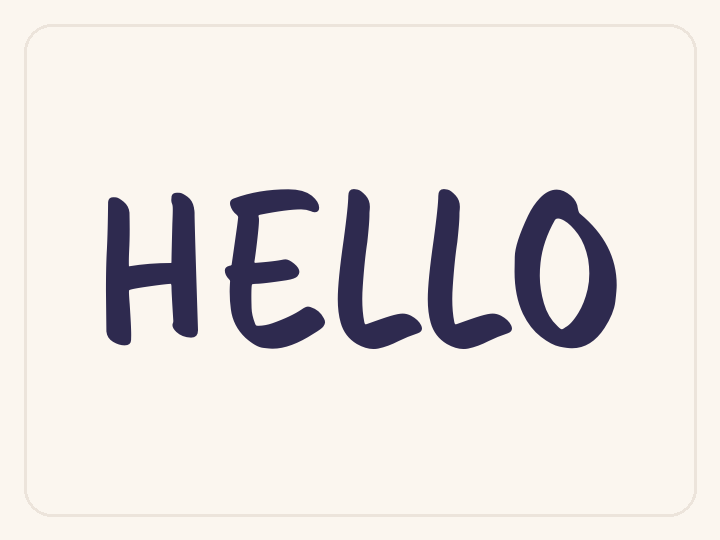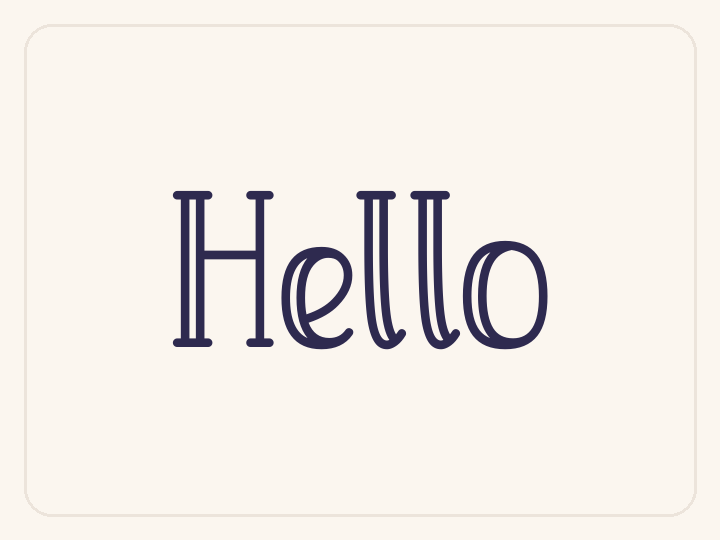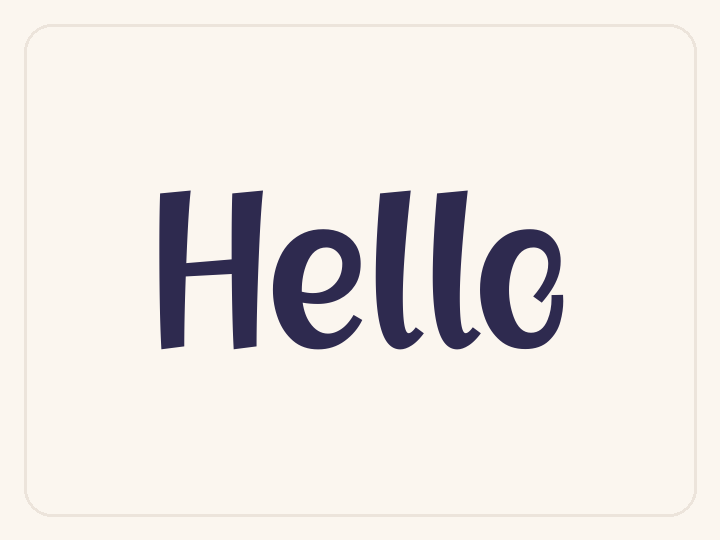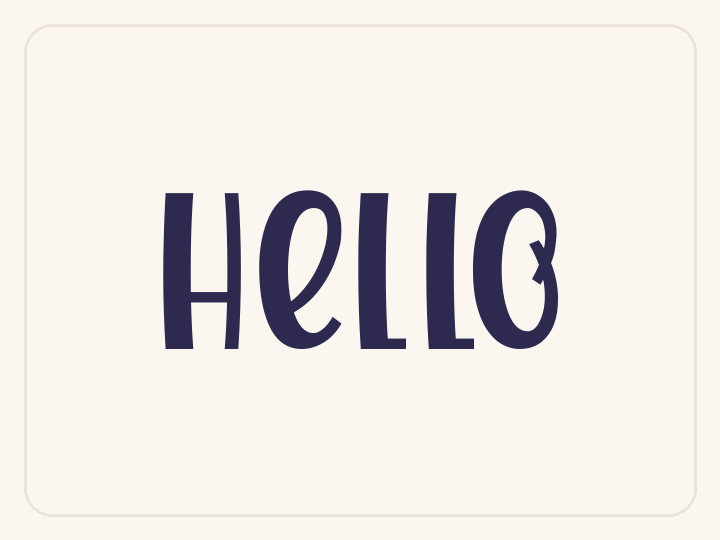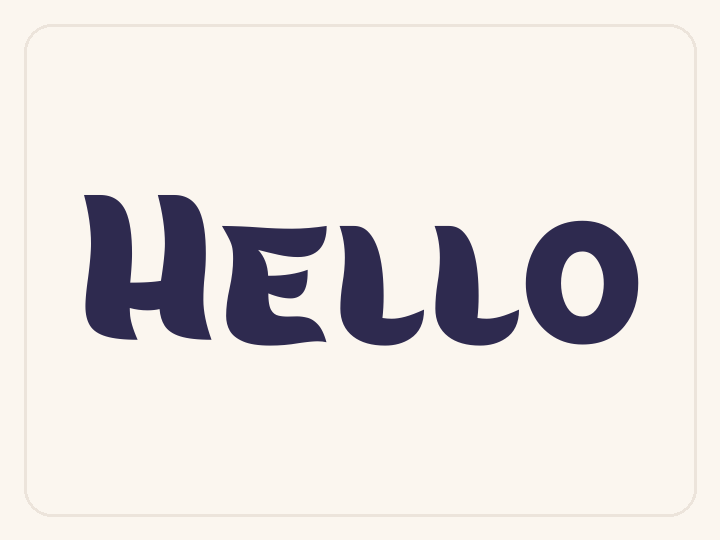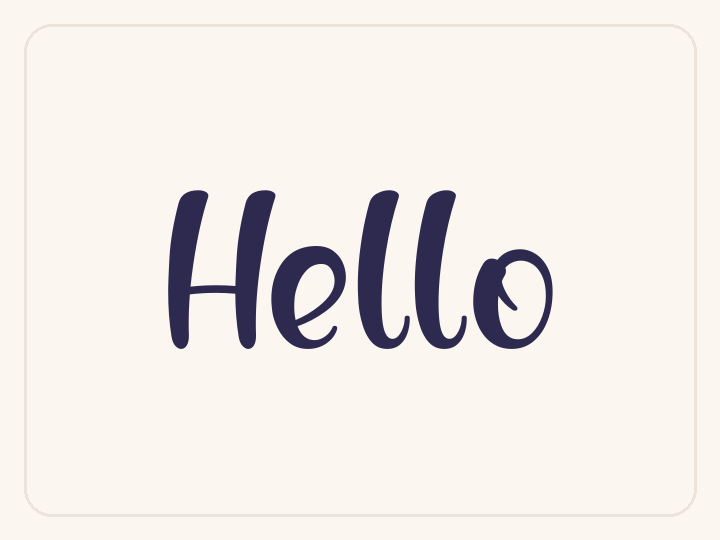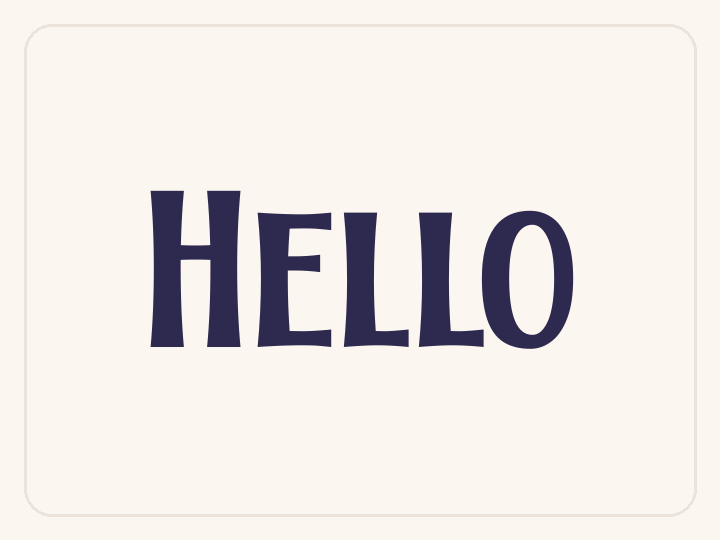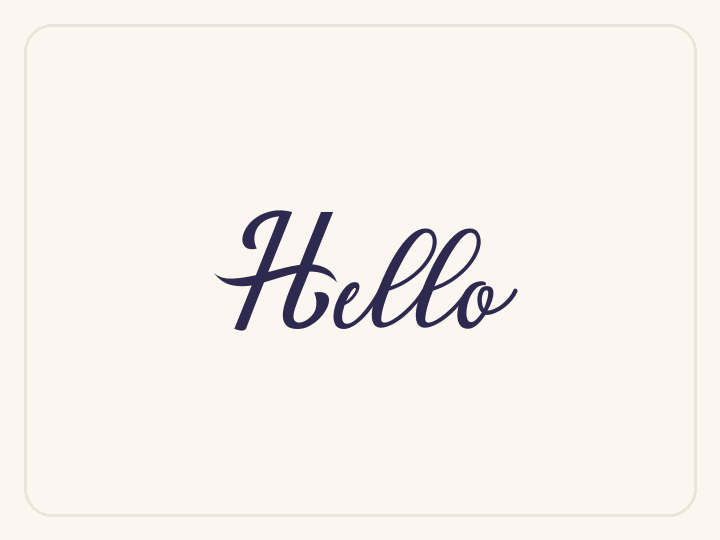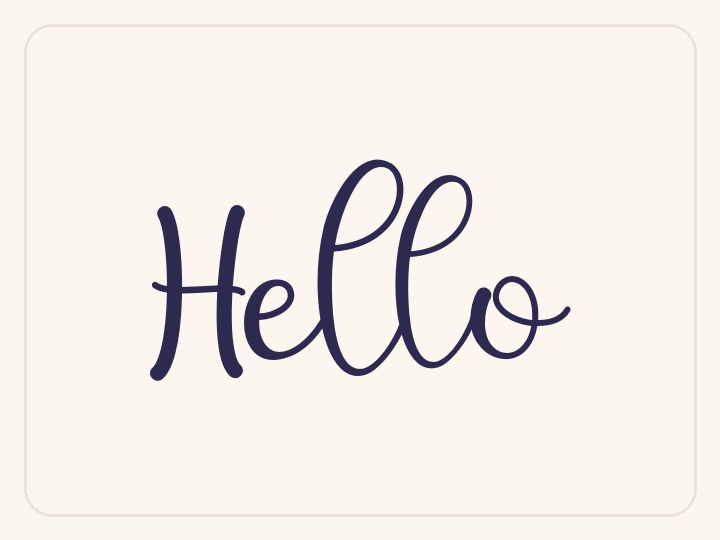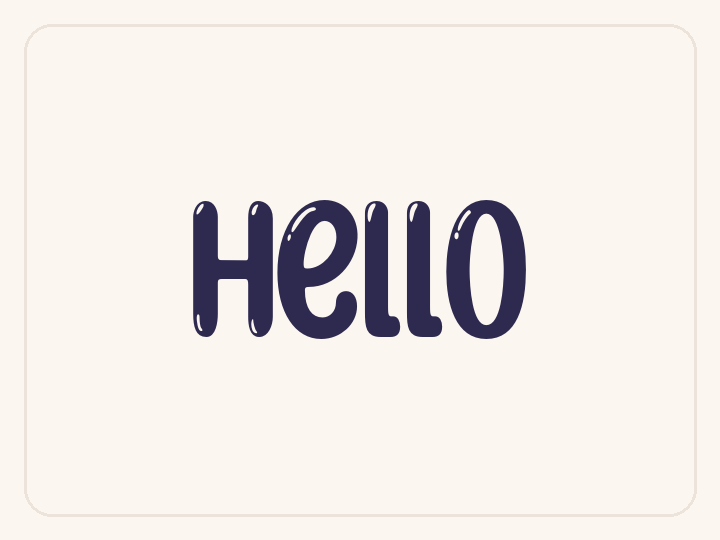
My Sweet Inspiration
Playful font for stickers and party invites — free for commercial use.
Sweety Script
Sweet lettering for kids crafts and printables — free for commercial use.
Cute Kitchen
Sweet lettering for kids crafts and printables — free for commercial use.
My Sweet Inspiration
Fun font for planner spreads and gift tags — free for commercial use.
Sweet Someday
Sweet lettering for kids crafts and printables — free for commercial use.